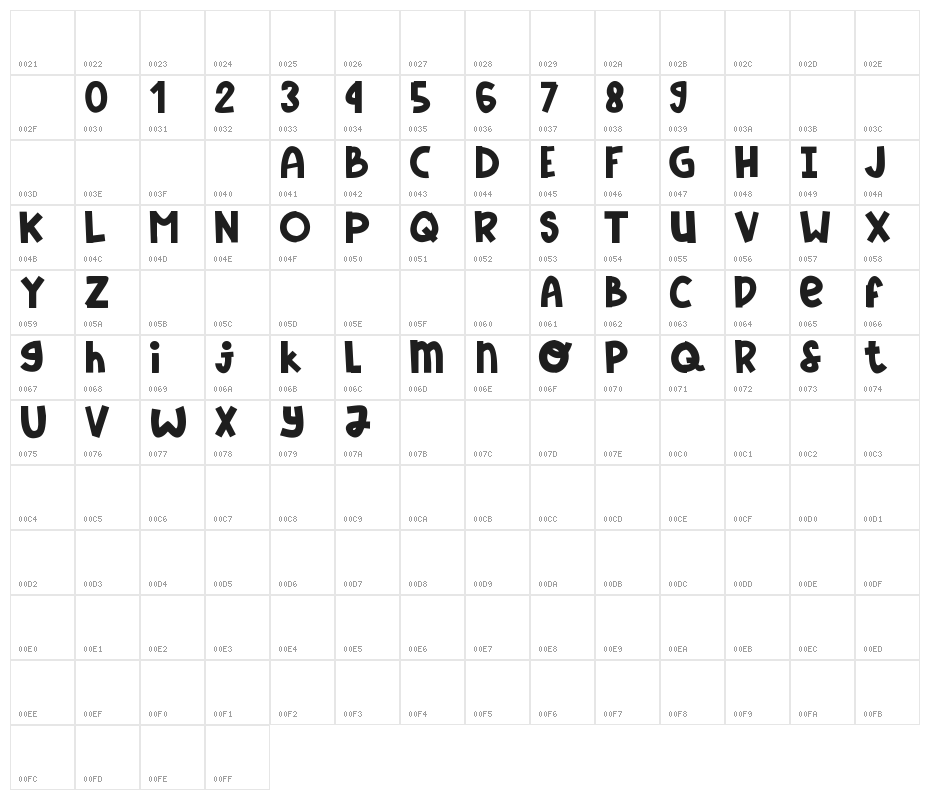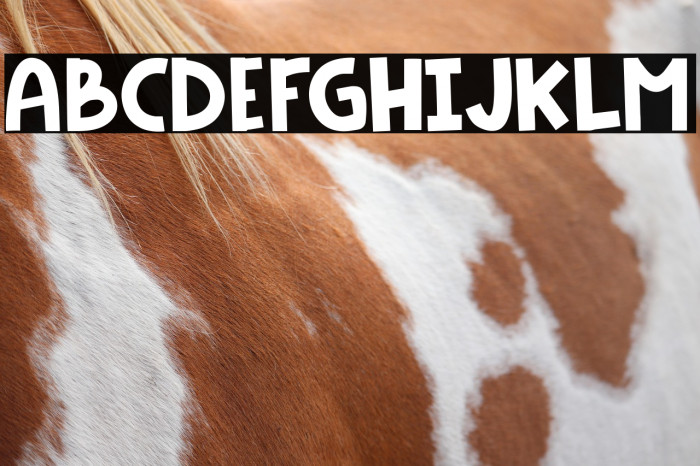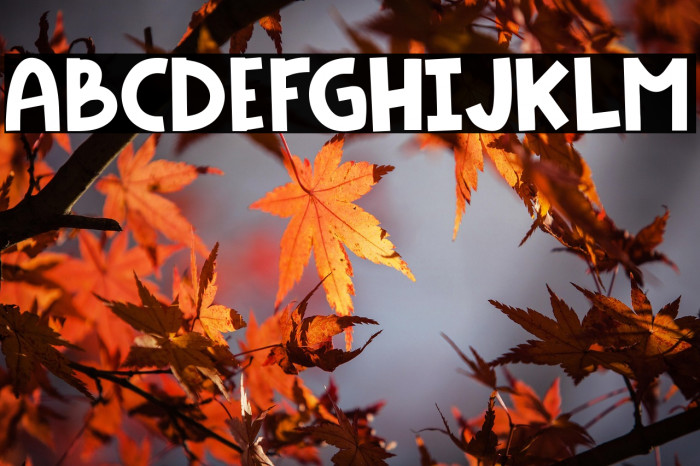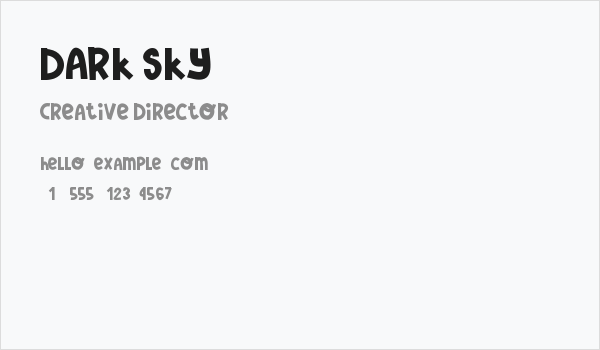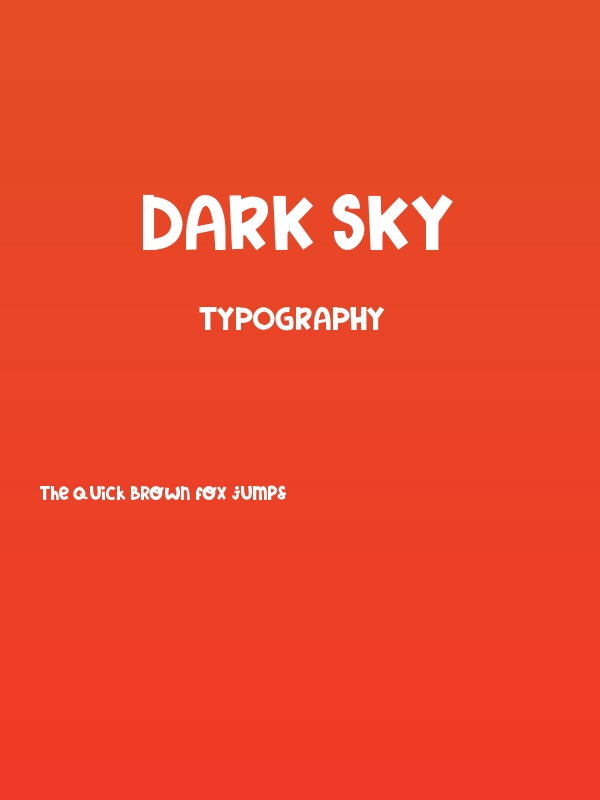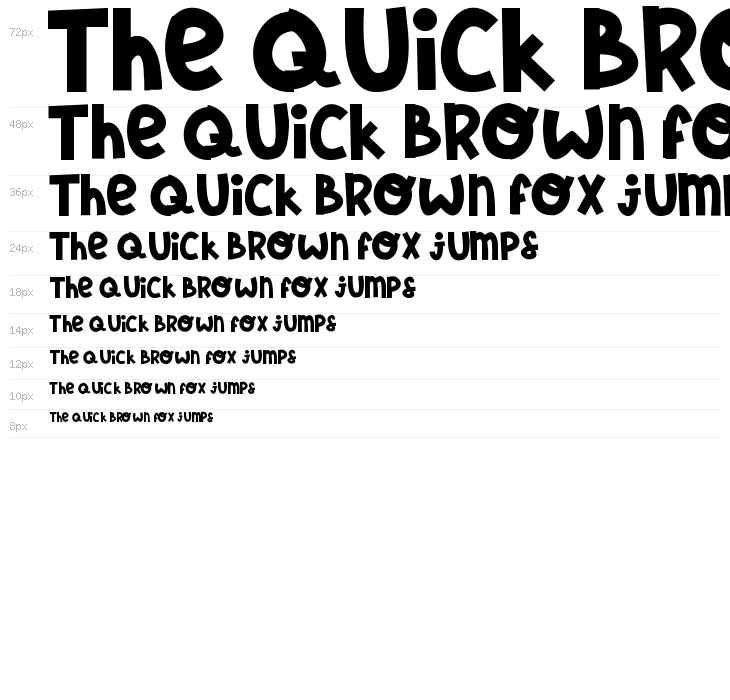
Dark Sky Font
Dark Sky Description
This font features a playful and bold style with a slightly irregular and whimsical appearance. The characters are thick and rounded, giving them a friendly and approachable feel. The uppercase and lowercase letters maintain a consistent weight, while the numbers and special characters follow the same design ethos. The font's unique character shapes, such as the curved 'R' and the looped 'g', add to its charm. Its boldness and distinctiveness make it suitable for eye-catching designs.
Overall StylePlayful
Proposed ProjectsIdeal for children's books, playful branding, posters, and creative projects that require a fun and engaging typeface.